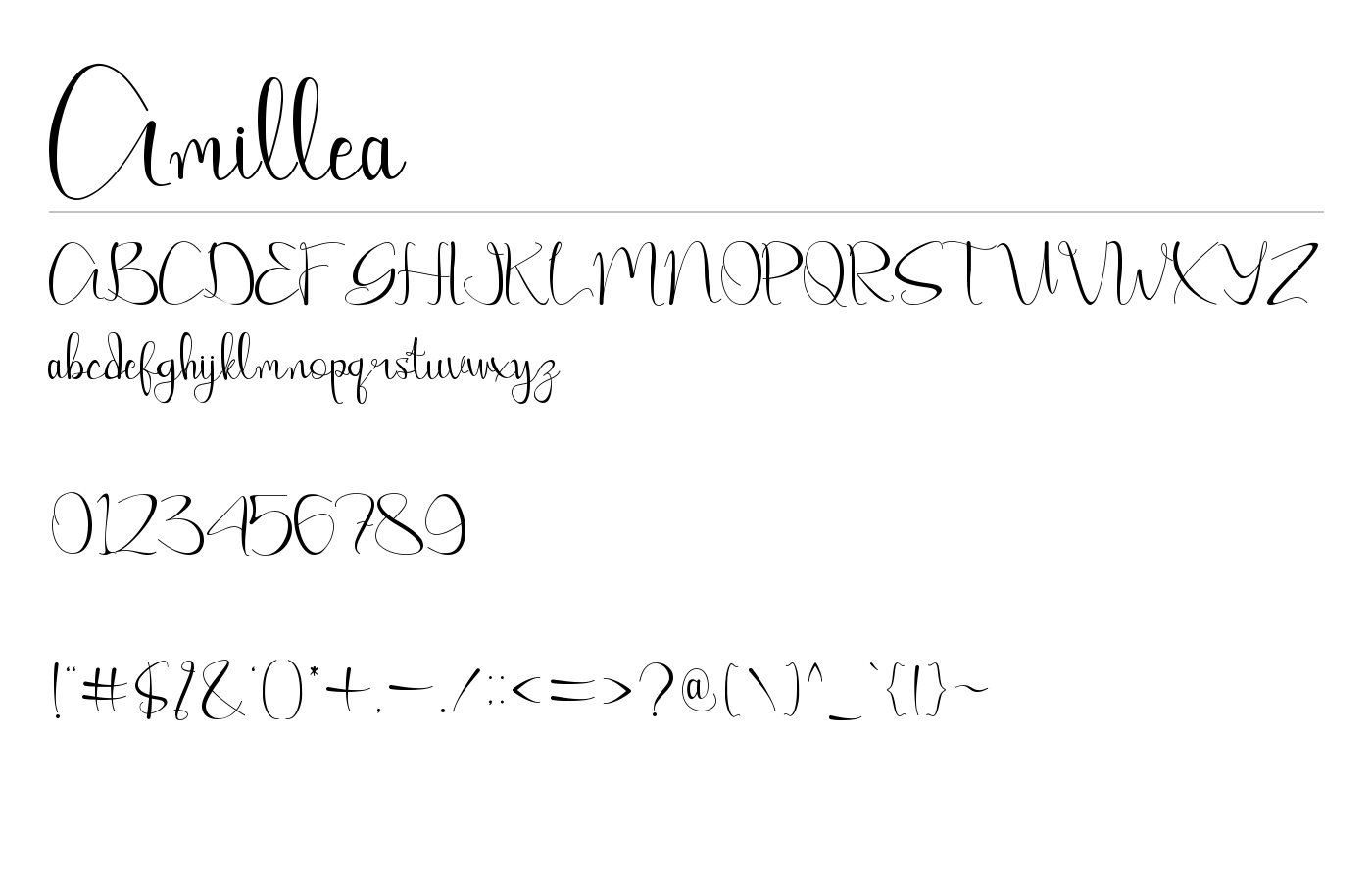
Amillea is a delicate, handwritten script font characterized by thin, flowing strokes and an airy, elegant appearance. Its tall x-height and unique, whimsical letterforms give it a charming and sophisticated personality, making it perfect for invitations, branding, and creative projects that seek a personal, artistic touch. This font works especially well in decorative headlines or logos where a light, graceful style is desired.
Amillea Font
About Amillea Font